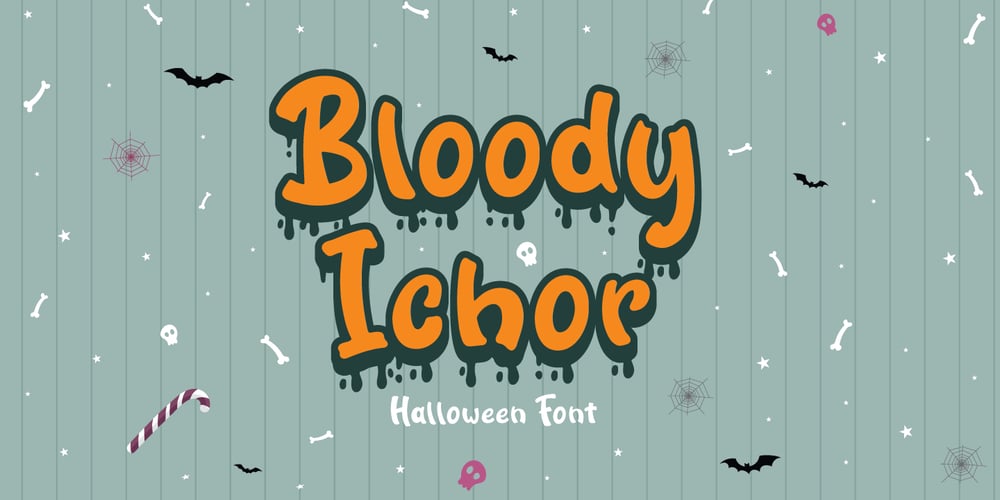
Bloody Ichor
Bloody Ichor font
Bloody Ichor Font Family was designed by Fadli Ramadhan Iskandar and published by Attype Studio. Bloody Ichor contains 2 styles and family package options. Bloody Ichor is a delicate and fun display dripping blood for Halloween layered display Font.Combine it with Bloody Ichor – Extrude to make an amazing 3D effect on your letter! Bloody Ichor perfect for halloween promotion, branding, logo, invitation, stationery, social media post, product packaging, merchandise, blog design, game titles, cute style design, Book/Cover Title and more.What’s Included :- Multilingual Support – Made it into separated file to make it easier to use by beginner & separated file user can use the font with software which doesn’t accept open type features.—Hope you enjoy with our font!Attype Studio